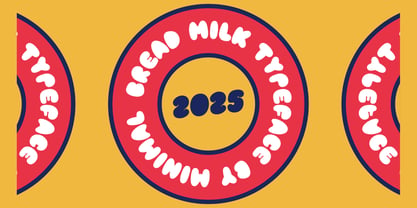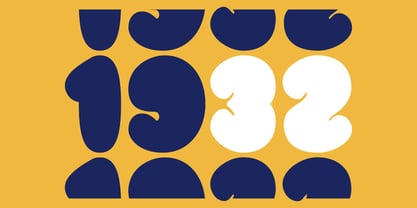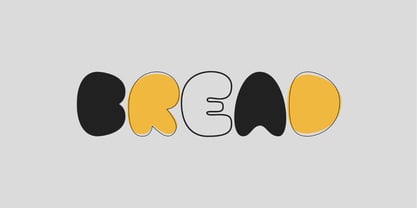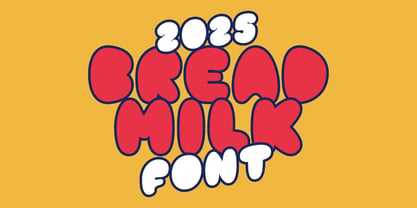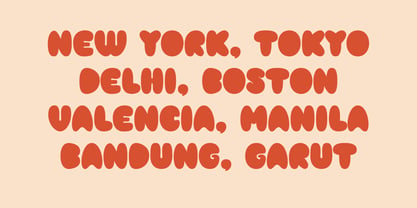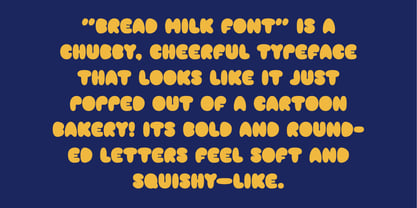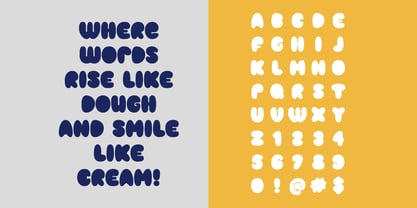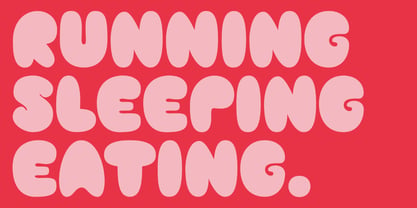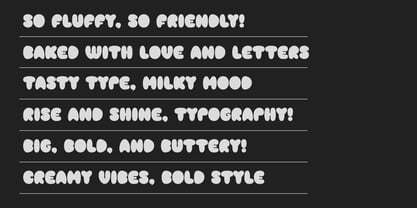
Bread Milk
by Modikstype
The Bread Milk Font Family was designed by Angga Monad and published by Modikstype. Bread Milk contains 1 styles. More about this family
Bread Milk is a chubby, cheerful display typeface that radiates warmth and friendliness. Designed with bold, rounded shapes and soft curves, it captures the playful essence of hand-drawn lettering while maintaining a clean, modern structure. Its plump and bubbly letterforms make it ideal for branding, packaging, posters, children’s products, and creative headlines that need a fun yet professional personality. With its smooth outlines and balanced proportions, Bread Milk adds a touch of comfort and joy to any design — like the perfect blend of softness and style.
Designers: Angga Monad
Foundry: Modikstype